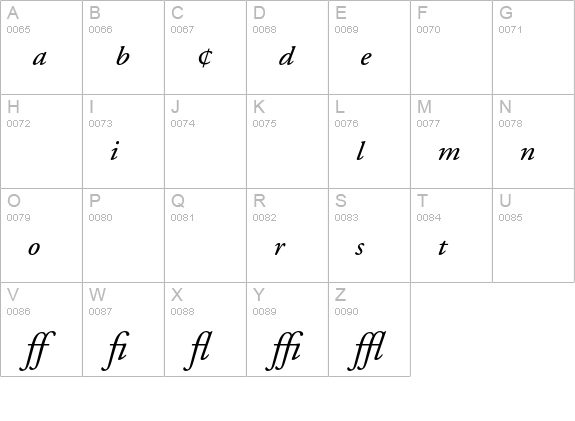
Adobe Garamond Italic Expert Font Details
Adobe Garamond Italic Expert is a distinctive, italic variant in the Adobe typeface family \xE2\x80\x94 well suited to design and typography projects.
Adobe Garamond Italic Expert is a classic and elegant font that exudes sophistication and style. With its slanted design, this font adds a touch of flair and refinement to any project. The delicate curves and smooth lines of Adobe Garamond Italic Expert make it perfect for conveying a sense of tradition and timelessness. What sets Adobe Garamond Italic Expert apart is that it is not only a stunning typeface but also completely free for anyone to use. You can easily download this exquisite font at FontsMarket.com and elevate your designs with its graceful and versatile appearance. Whether you are working on a formal document, a creative project, or anything in between, Adobe Garamond Italic Expert is sure to make a lasting impression.